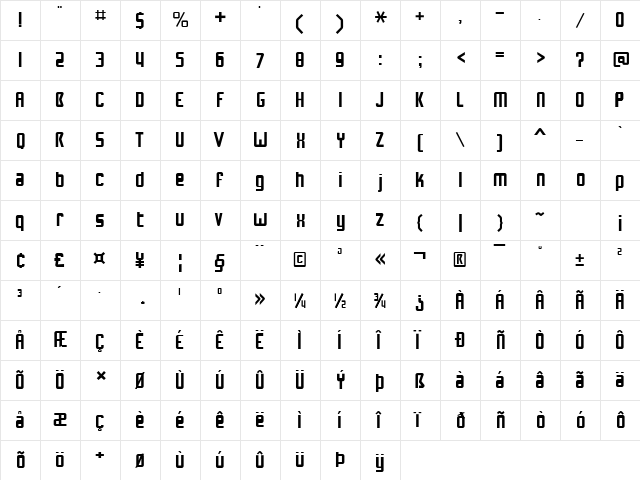
NuWave BV 2.0 Regular
NuWave BV 2.0 is a composed and adaptable typeface that performs quietly and consistently across a wide range of design contexts.